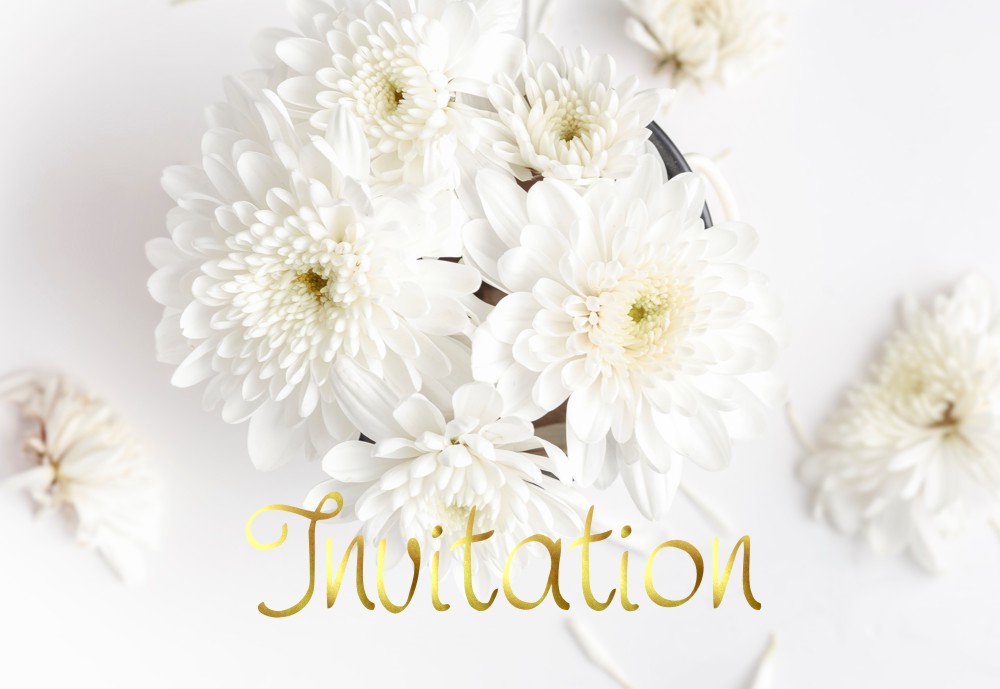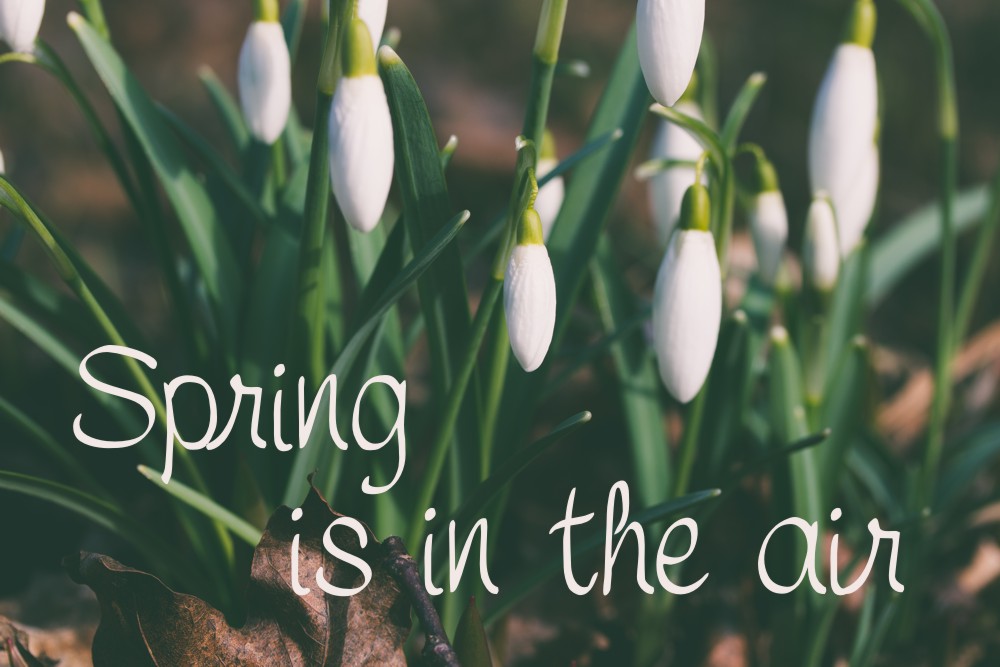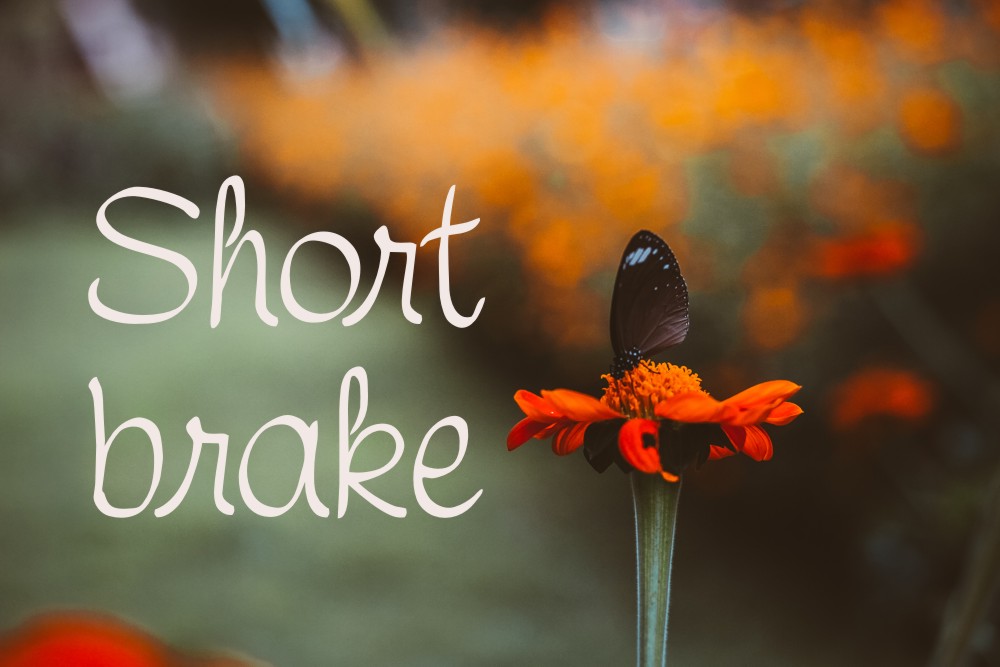
Symca Font
About Symca Font
Symca is a carefully drawn font. It was drawn by hand on a digital tablet.
Symca is great for invitations, cards, branding, logos, titling, signage, poster, flyers or t-shirts design, headlines and more